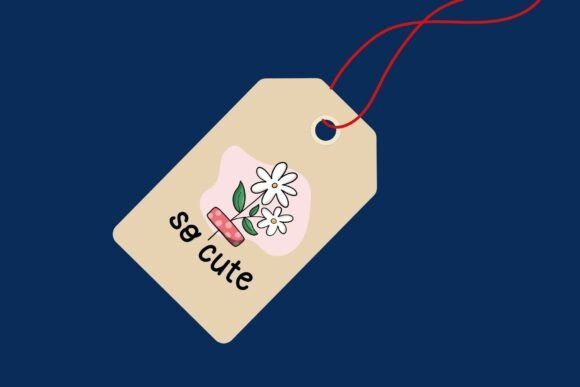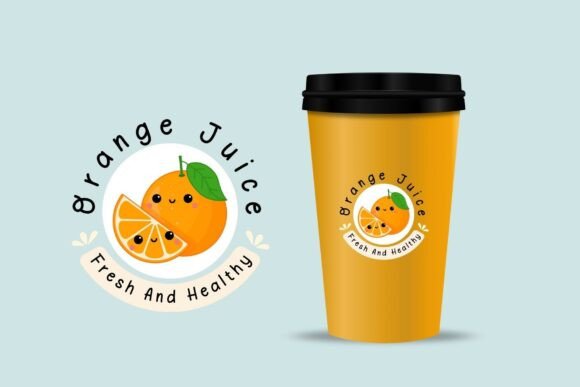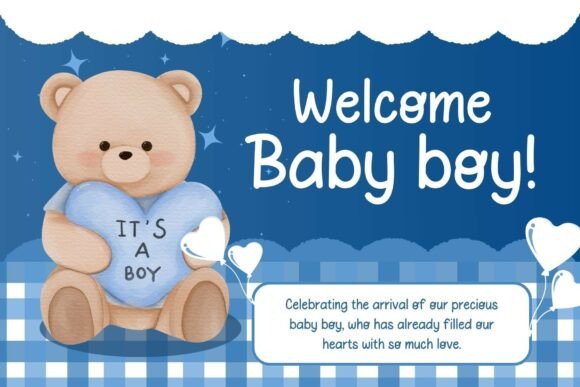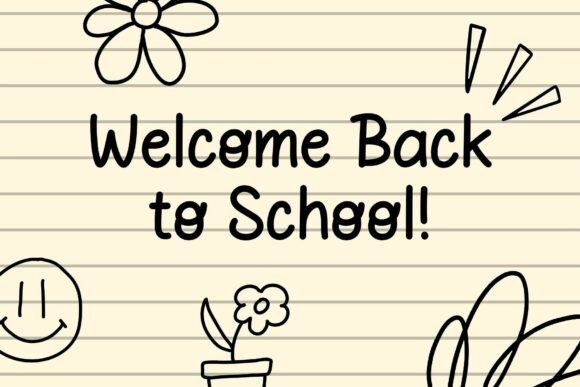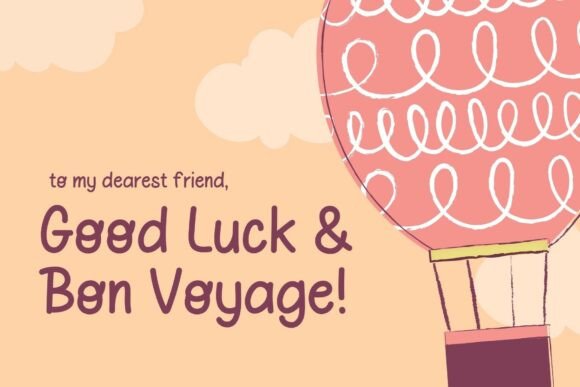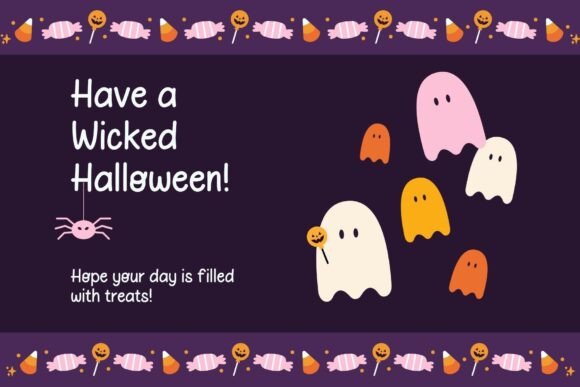
Introduction to Fox Nibblish Font
Have you ever been in a creative rut, staring at a blank page with no ideas in sight? That’s when I stumbled upon the Fox Nibblish Font – a playful and vibrant display font that instantly brought a smile to my face. Its quirky shapes and smooth curves are a perfect combination to spark joy and imagination in both kids and designers.
As a designer, I know how valuable it is to have a versatile and high-quality design resource like the Fox Nibblish Font. With its transparent background and free download option, it’s a must-have for any creative project, from children’s books and games to educational materials and packaging. Whether you’re working on a project for a toy brand or creating birthday invitations, this font is sure to bring a touch of whimsy and fun to your designs.
Key Features of Fox Nibblish Font
- Unique, hand-drawn design with a transparent background, ideal for creative projects
- Designed to be highly versatile, suitable for a wide range of creative projects, from logos to typography
- High-resolution font, suitable for use at any size, from small text to large titles
- Perfect for designers looking for a distinctive, whimsical touch in their designs
Honest Review: Fox Nibblish Font
As a designer, I was excited to try out the Fox Nibblish Font for my latest creative project. I was looking for a unique and high-quality font to add some flair to my design, and I was pleased to find that the Fox Nibblish Font delivered.
- ✨ The Fox Nibblish Font has a fun and quirky feel to it, making it perfect for playful and creative projects.
- ✨ The font is highly customizable, allowing me to adjust the size, color, and even the background of the text to suit my design needs.
- ⚠️ The Fox Nibblish Font may not be suitable for projects that require a transparent background, as it can be a bit tricky to work with.
- ⚠️ The font may not be as polished as some other high-quality fonts on the market, but it still looks great for a free download.
Overall, I was impressed with the Fox Nibblish Font and would definitely recommend it to designers looking for a unique and free design resource. While it may have a few limitations, it’s a great addition to any designer’s toolkit.
Common Use Cases for Fox Nibblish Font
The Fox Nibblish Font is ideal for a variety of creative projects, including logos, branding materials, and marketing collateral. Its unique design and high-quality resolution make it perfect for use on a transparent background, adding a professional touch to any design project.